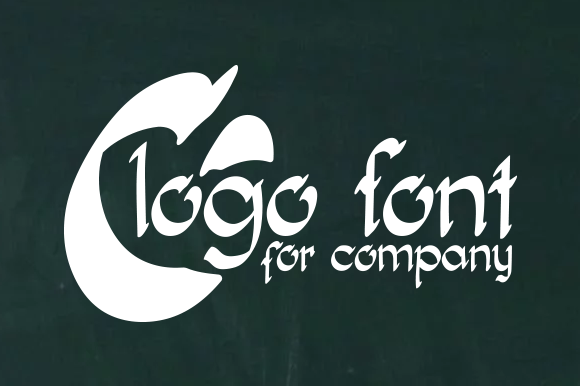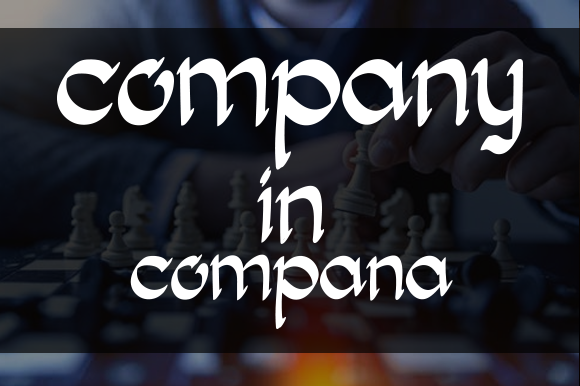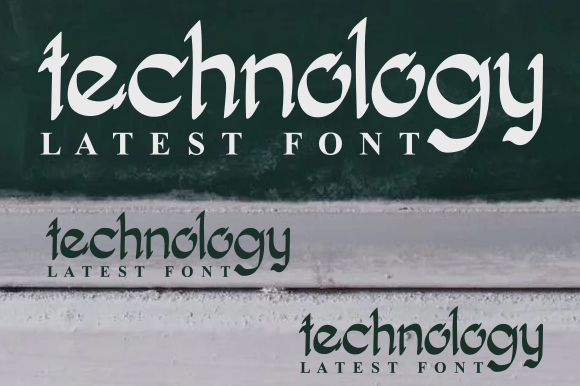
Introduction to Magoalo Abola Font
Magoalo Abola embodies fun, quirkiness and authenticity.
Use this amazing and unique display font to bring any DIY project to life .
Why Choose Magoalo Abola Font?
Magoalo Abola Font offers exceptional quality and versatility, making it a valuable addition to your design toolkit. Whether you’re creating for personal projects or commercial use, Magoalo Abola Font delivers professional results.